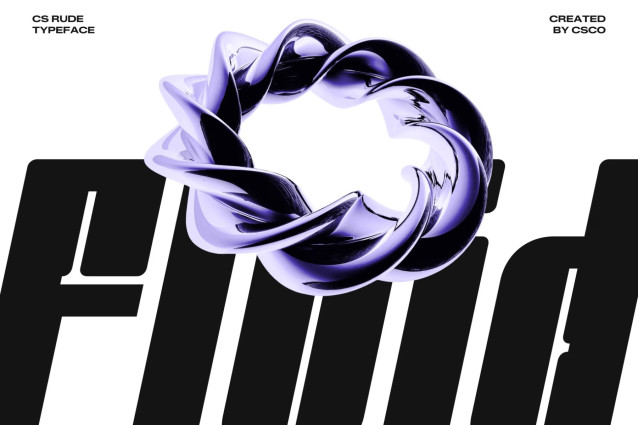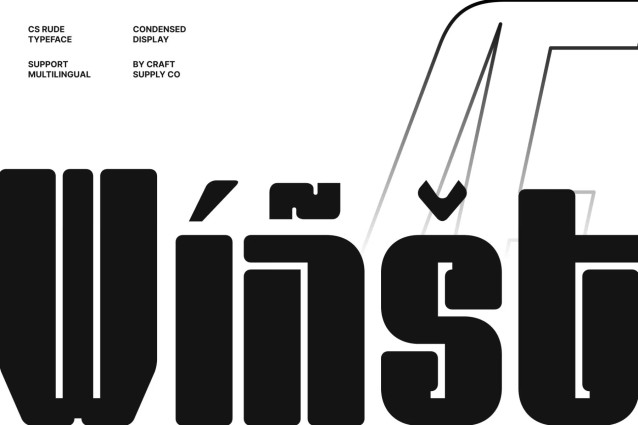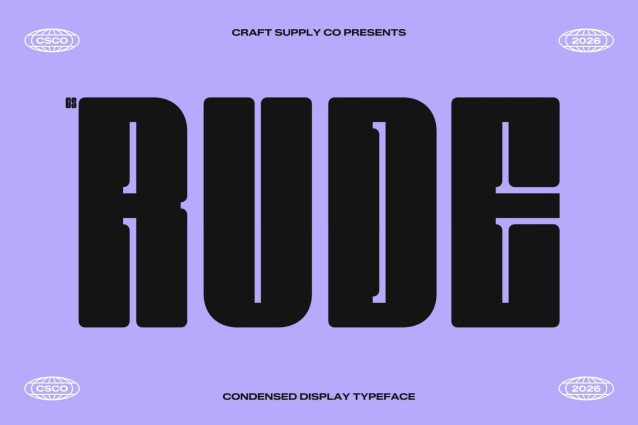
CS Rude – Condensed Font
CS Rude – Condensed Industrial Sans Serif with Bold Authority
Condensed Sans Serif with Industrial Edge
This is a compact and modern condensed sans serif font designed to deliver a bold industrial presence. Built for strength and efficiency, this typeface combines sharp structure with contemporary energy, creating a confident voice that commands attention. Its strong personality makes it perfect for designs that need to feel powerful and modern.
Designed for Maximum Impact in Tight Spaces
With its condensed proportions, this font allows designers to fit more content into limited layouts without sacrificing clarity. The tall, narrow letterforms create a striking vertical rhythm that feels assertive and space-efficient. This makes it ideal for headlines, posters, and branding where space is limited but visual impact is essential.
Bold Character with Strong Readability
Despite its compact form, this font maintains excellent readability across various sizes. The clean strokes and balanced spacing ensure text remains clear and legible, while the industrial aesthetic adds depth and personality. This balance between boldness and clarity makes it a dependable choice for impactful typography.